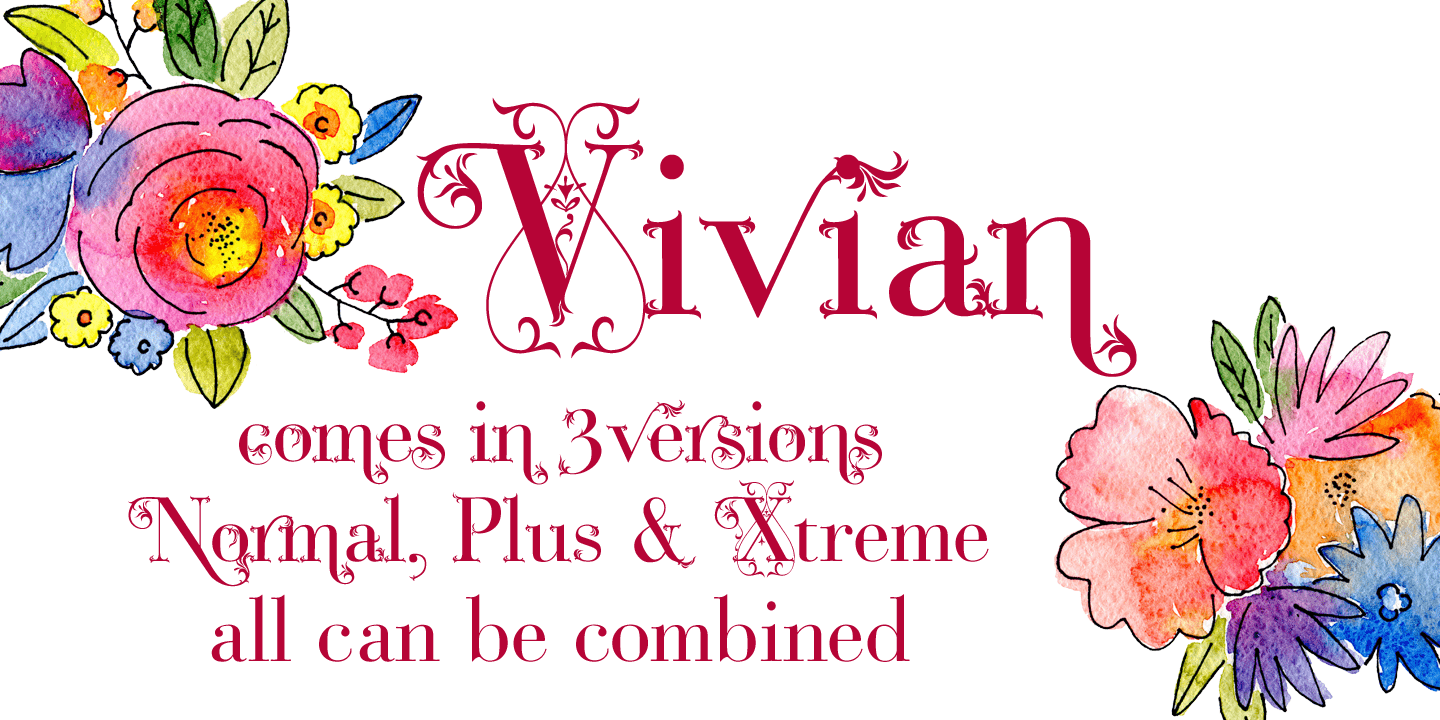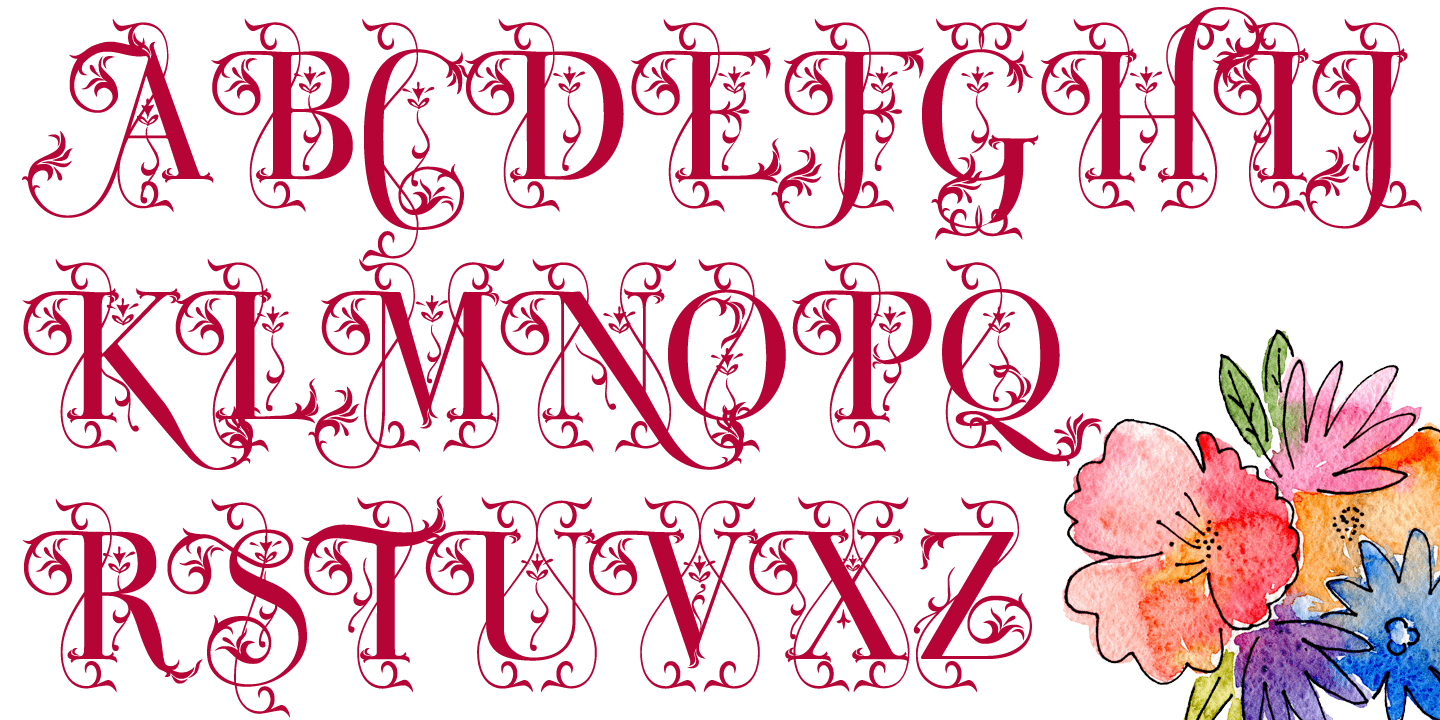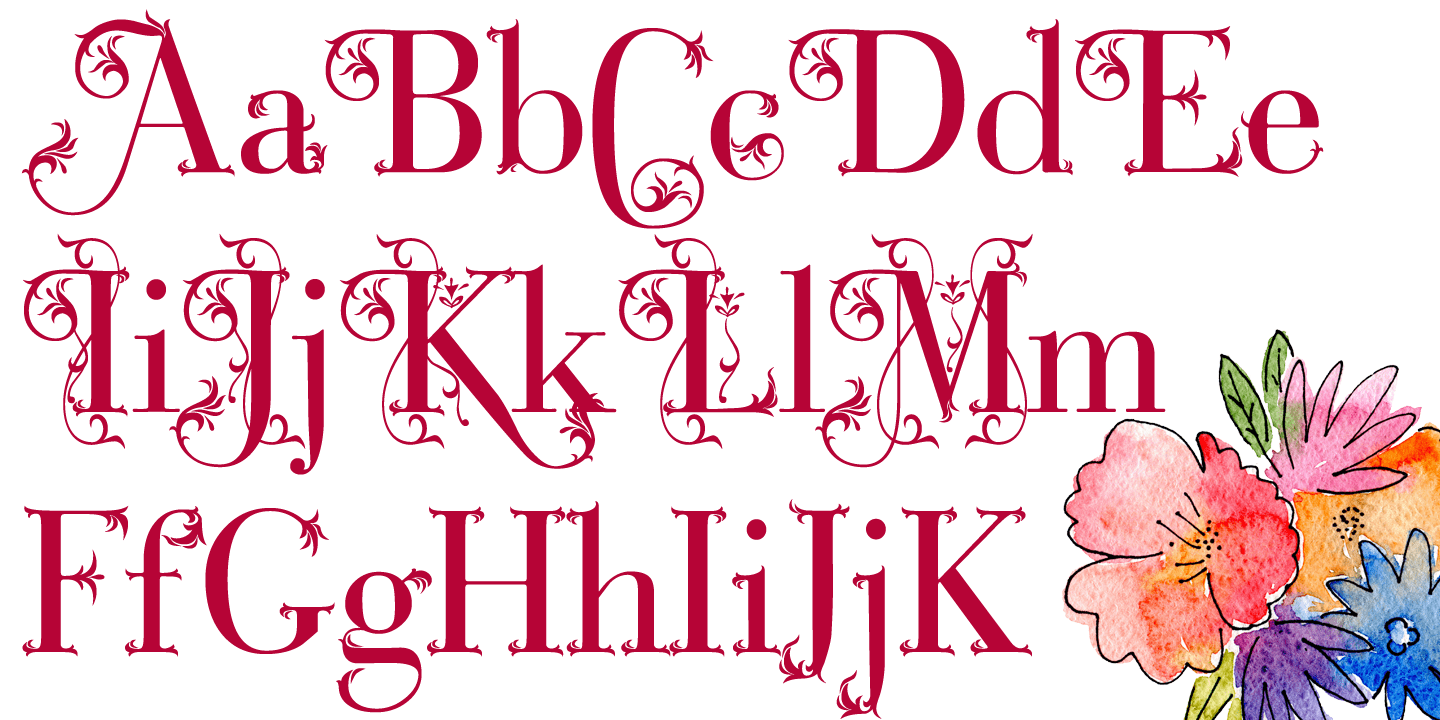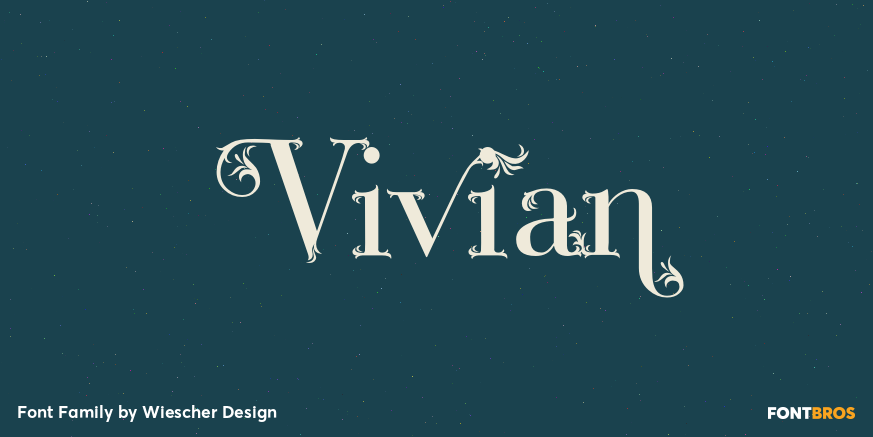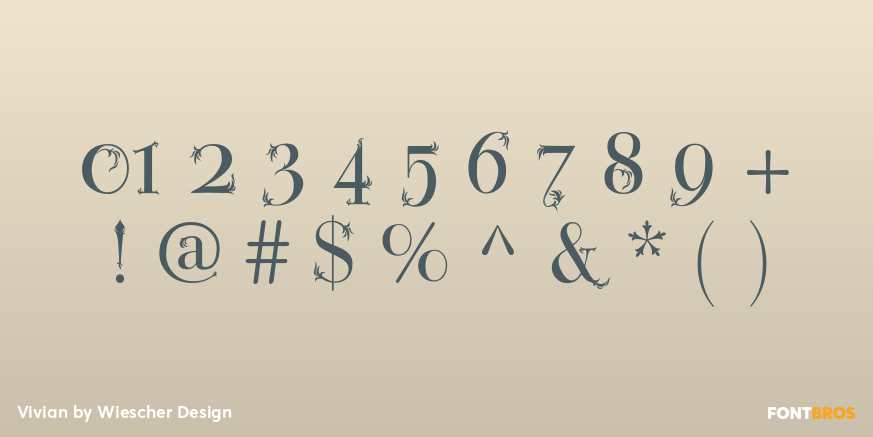
Vivian
Vivian is a heavily decorated serif typeface based on my Bodoni Classic font. I have this flaw in my personality that just enjoys designing decorative typefaces.
I made three cuts.
First: the straightforward Vivian with nicely decorated capitals and abundant lowercase letters.
Second: the Plus with sparingly decorated capitals and fitting lowercase letters. Third: the Xtreme cut with heavily decorated capitals and lowercase letters without any frills.
All three can and should be mixed with each other. That's why I sell them as a reasonably priced set of three only.